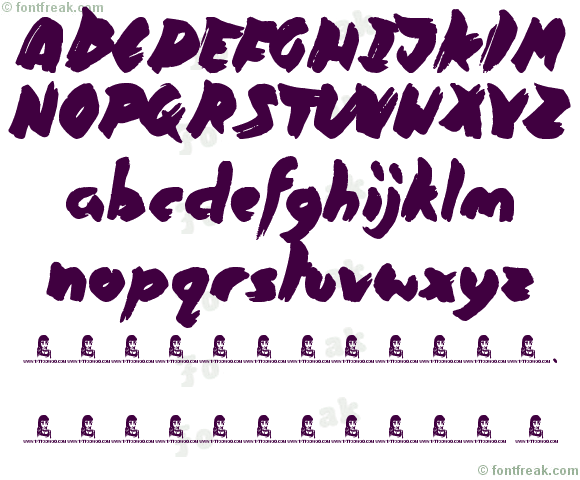
Times are Hard
Times are Hard by Jonathan S. Harris is a unique handwritten font that captures a sense of raw, organic charm. This freeware typeface is characterized by its bold, expressive strokes and a slightly irregular baseline, which adds a personal touch reminiscent of hand-drawn lettering. The font features a medium stroke weight with noticeable contrast, lending it an energetic yet approachable feel. Its spacing is comfortably balanced, making it easy to read while maintaining an artistic flair. The decorative elements of the font, including its playful swashes and varied letterforms, enhance its visual appeal without overwhelming the viewer.
This versatile font is well-suited for a variety of applications. It shines in creative projects like wedding invitations, where its informal elegance can convey a sense of warmth and intimacy. It also works beautifully on movie posters, lending a dramatic and edgy quality that captures attention. Restaurant menus can benefit from the font’s inviting character, making dishes feel more personal and appealing. Additionally, it is ideal for social media graphics and branding materials, particularly for small business owners looking to establish a unique identity that resonates with their audience.
The target audience for the Times are Hard font includes graphic designers, content creators, and small business owners who appreciate a distinctive, handwritten style that sets their work apart. Its informal yet impactful design makes it a favorite among those looking to convey authenticity in their projects.
In conclusion, the Times are Hard font stands out due to its distinctive character and versatile applications. Its ability to evoke emotion and create a personal connection makes it an excellent choice for anyone seeking a handwritten aesthetic. Don’t miss the opportunity to enhance your designs with the Times are Hard font free download, adding a touch of creativity to your projects.